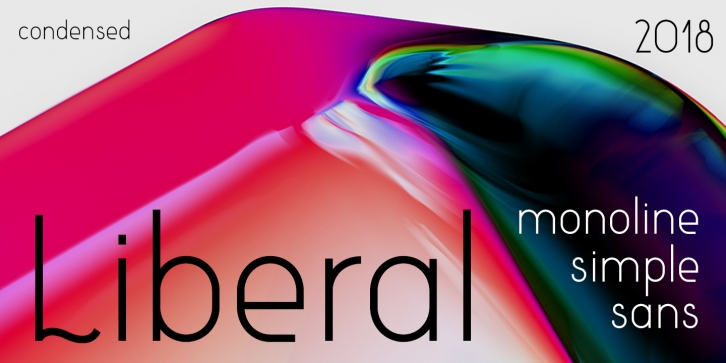
Liberal Condensed is a beautiful, condensed sans serif font. This font is a legible and thin font, making it ideal for headlines and body text. Liberal Condensed can give your designs a clean and contemporary feel.